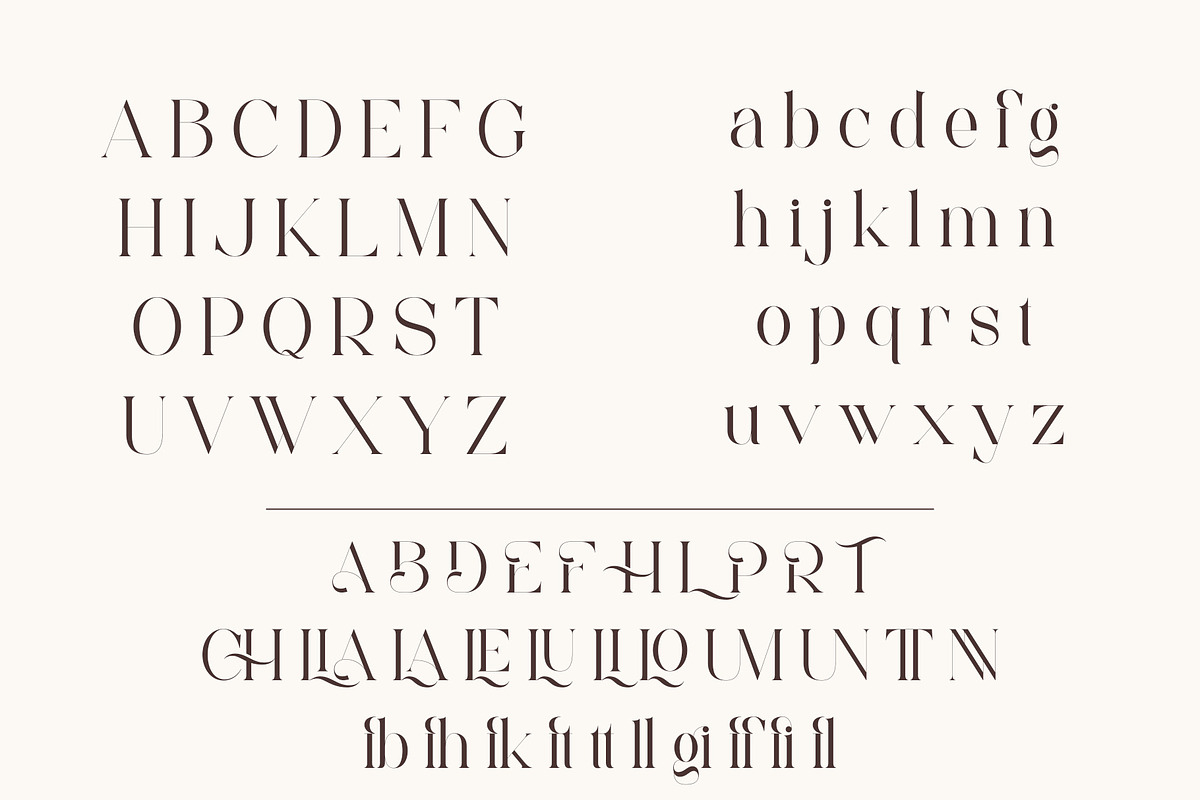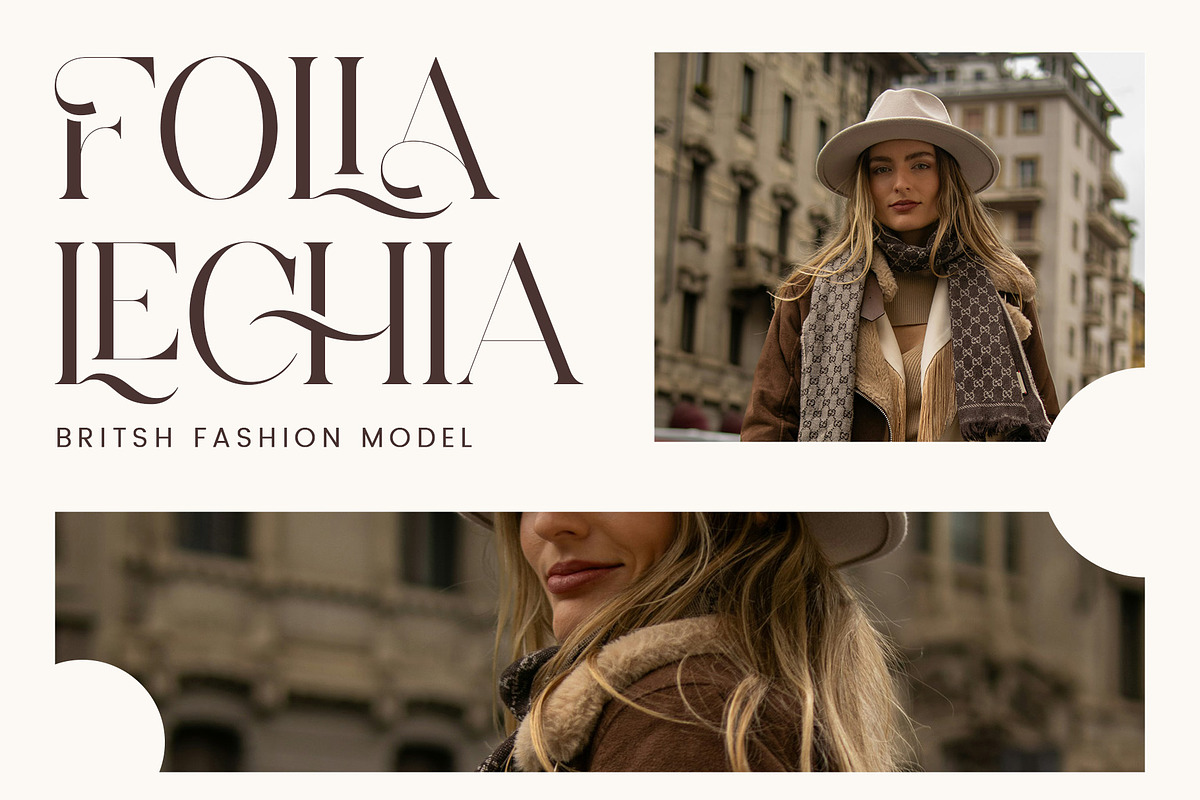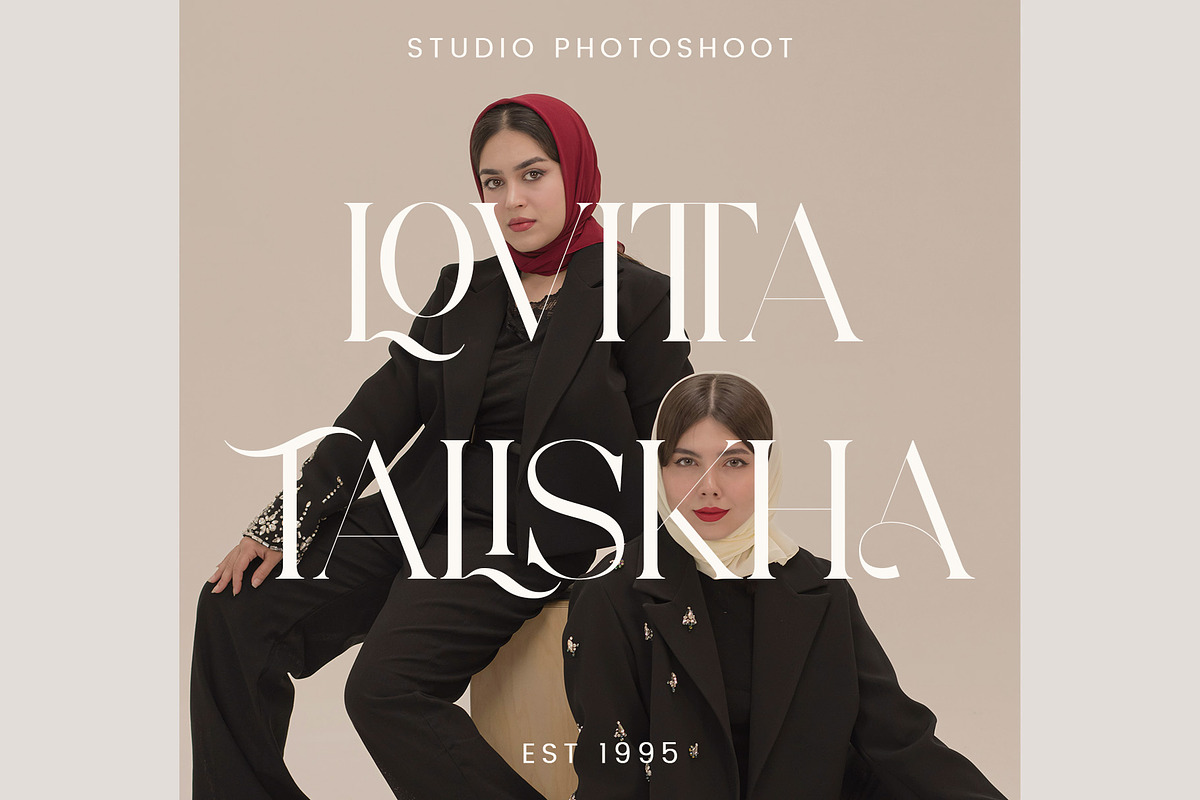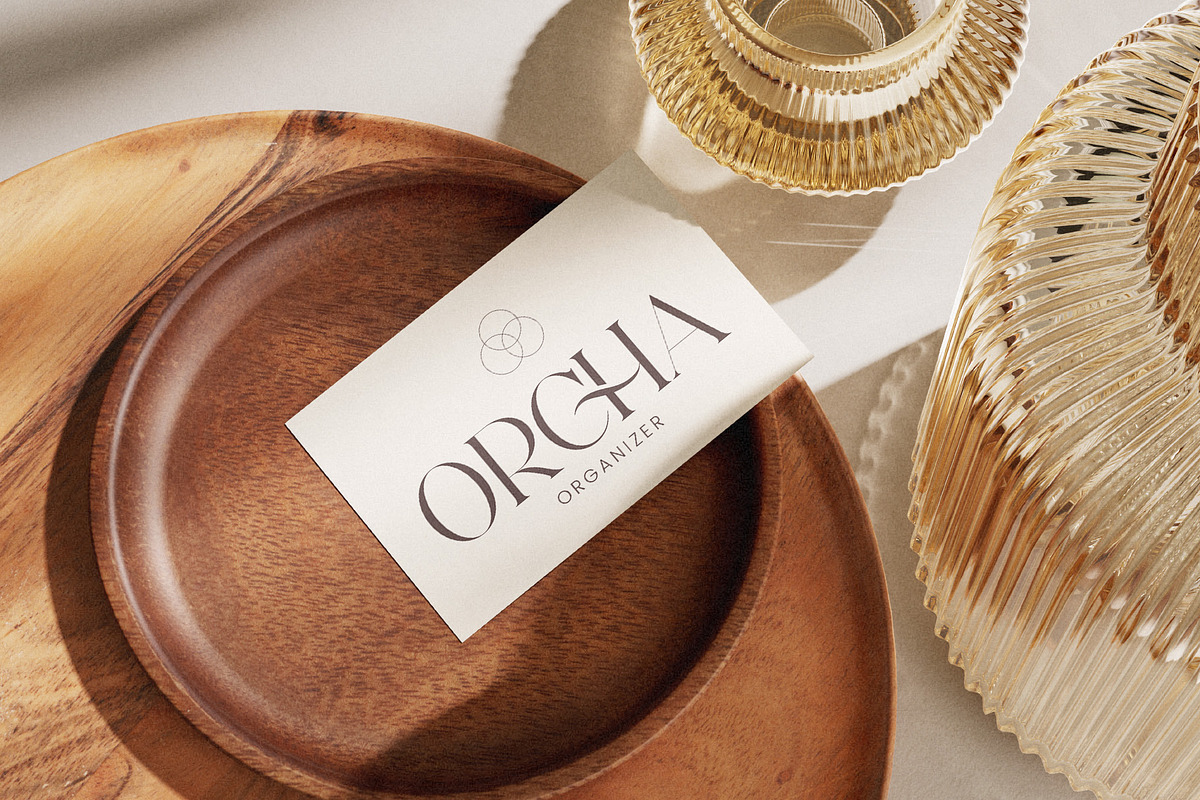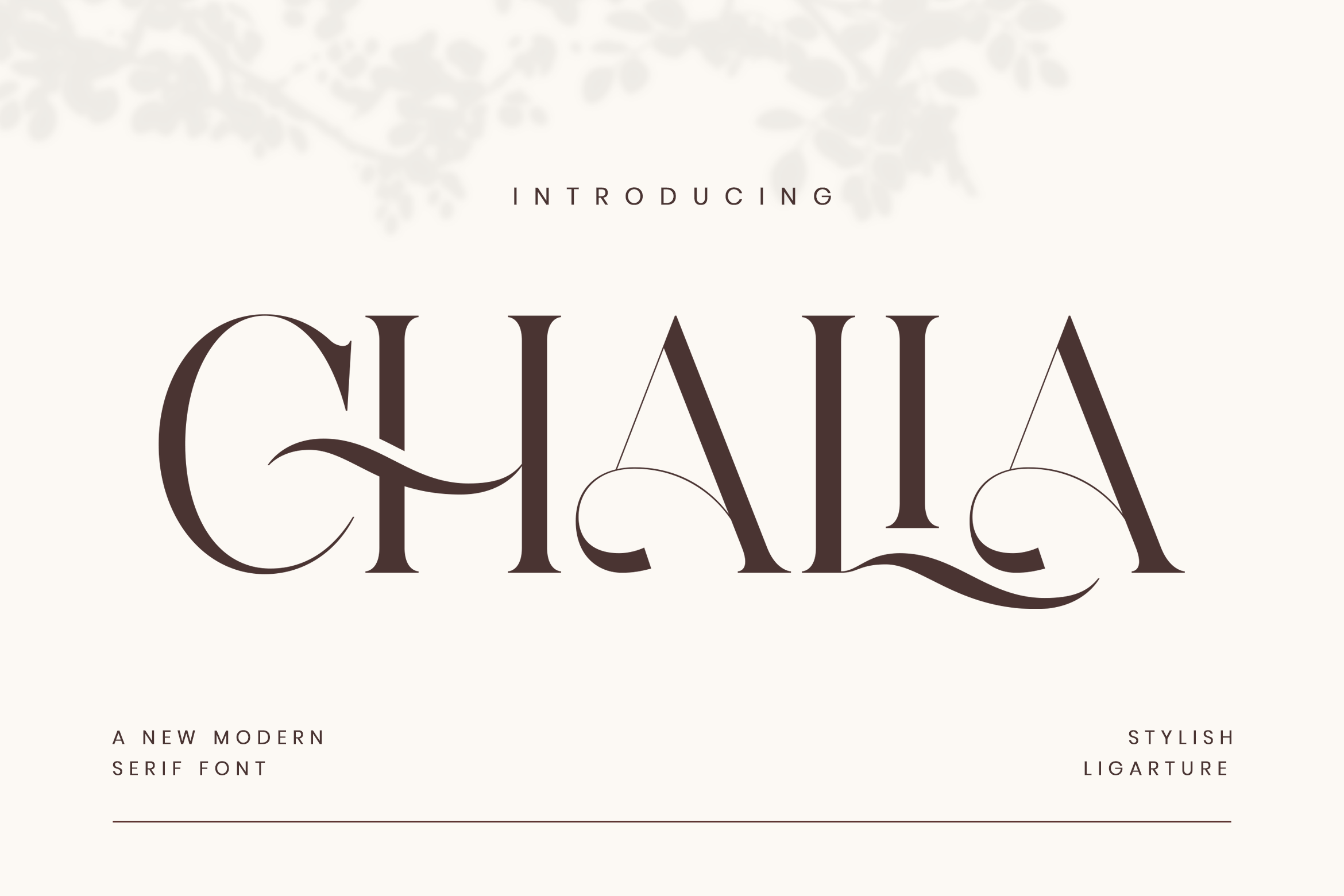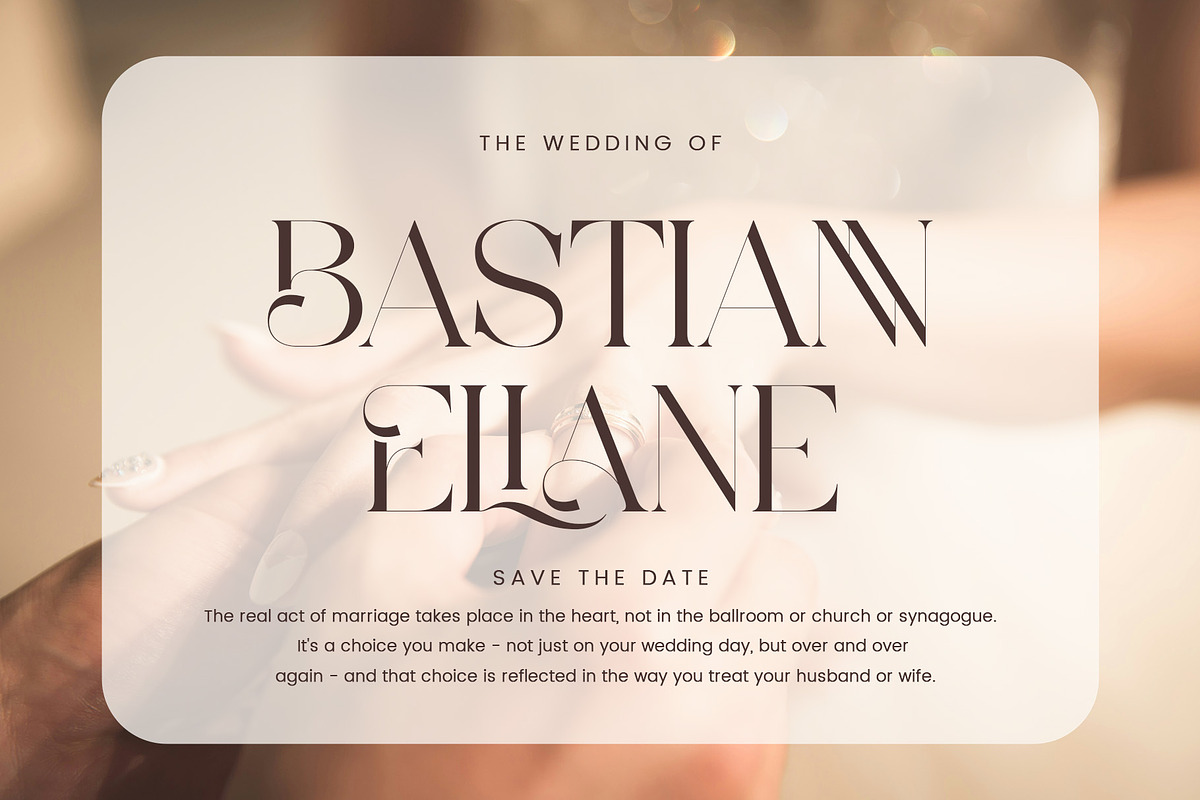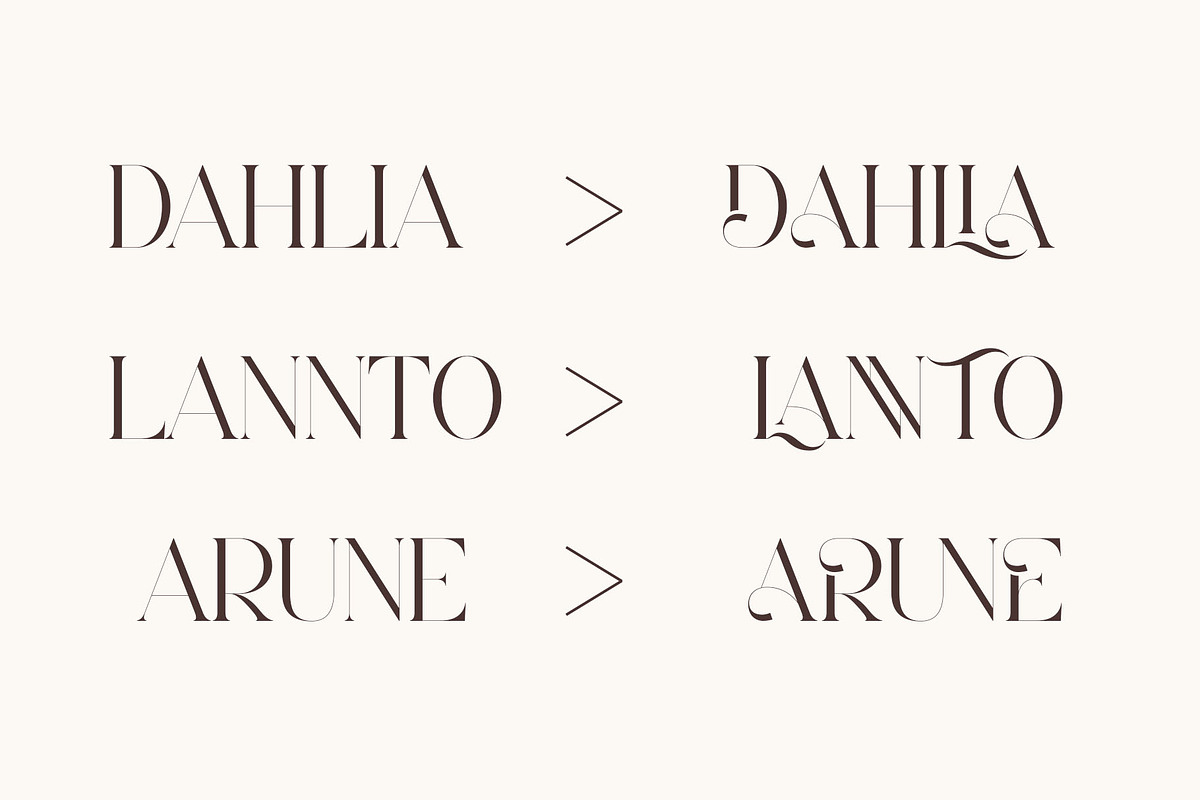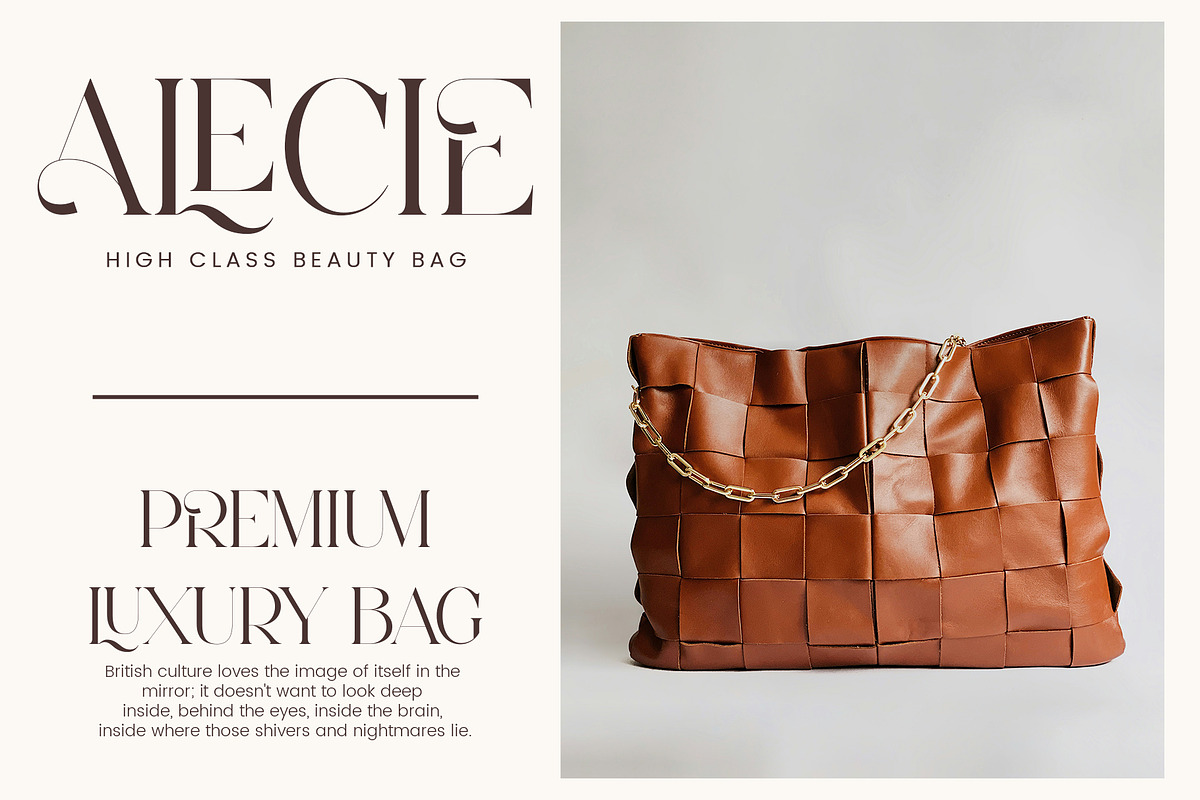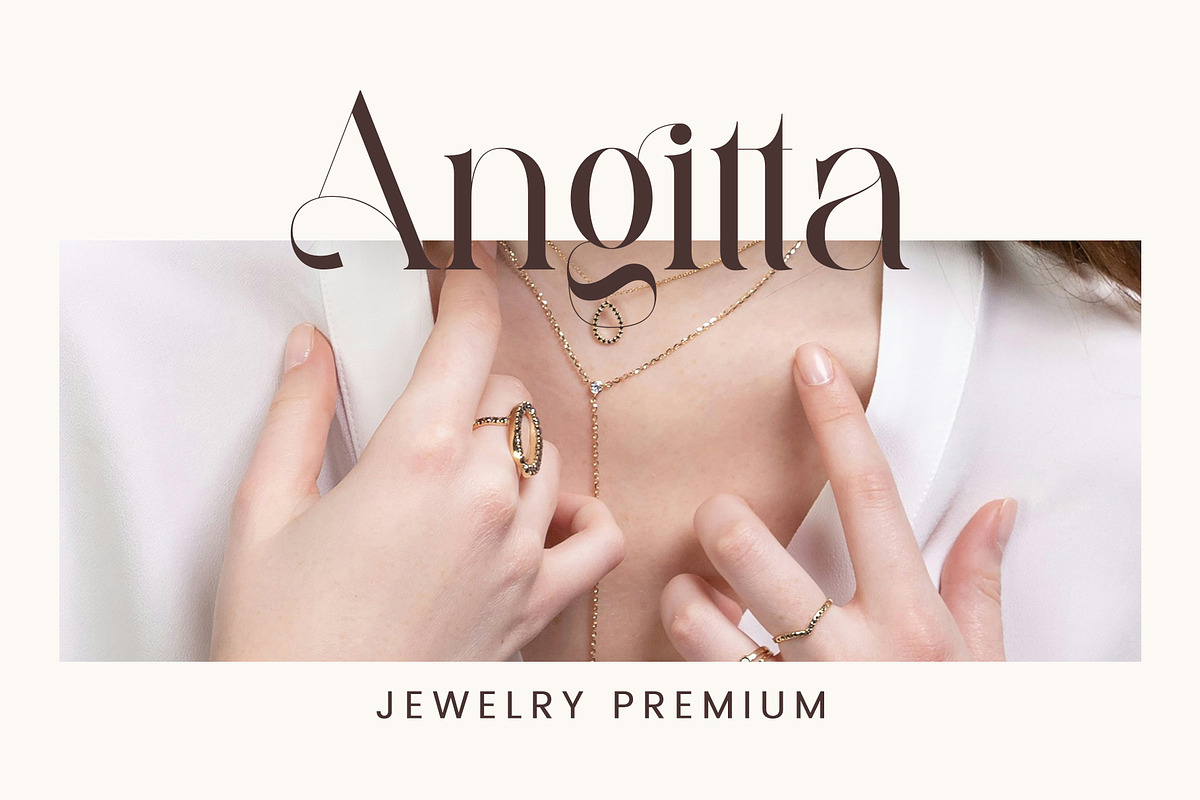
Chalia - Modern Stylish Serif Font
Chalia Stylish Ligature Typeface, inspired by the famous minimalist logo perfect for the purposes of designing templates, brochures, videos, advertising branding, logos and more.